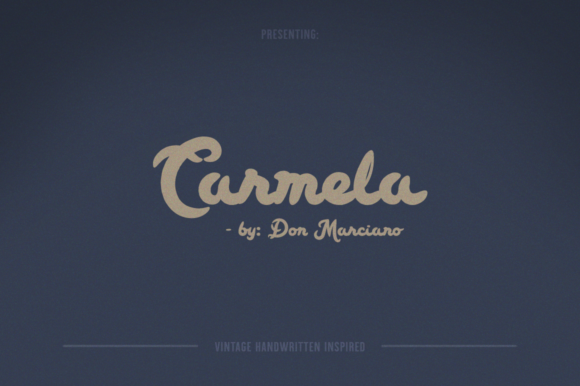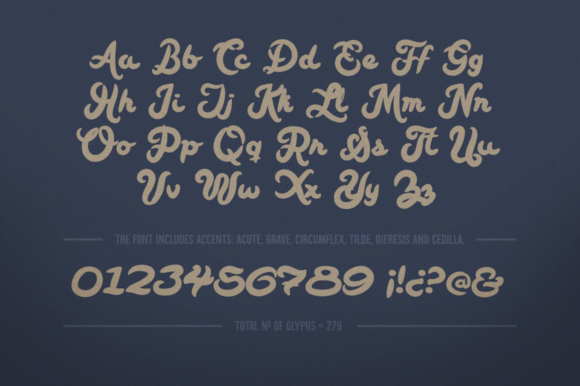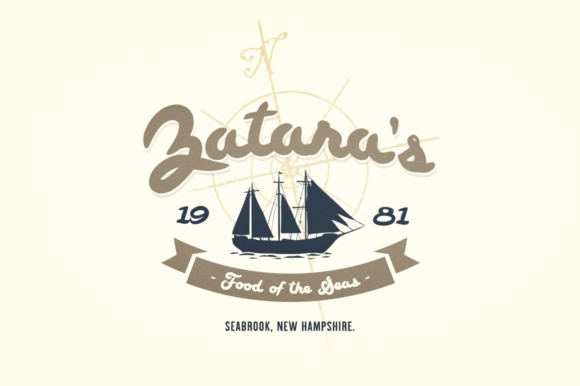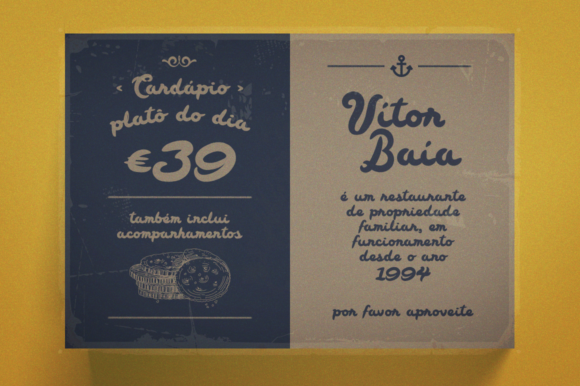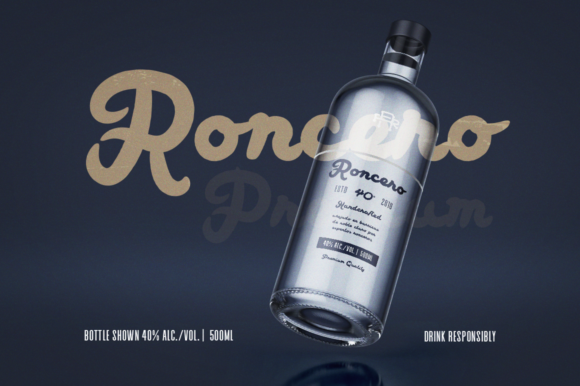
About Carmela Font
Carmela feels playfully nostalgic and delivers an incredible vintage aesthetic. Use this script font to add that special retro touch to any design idea you can think of!